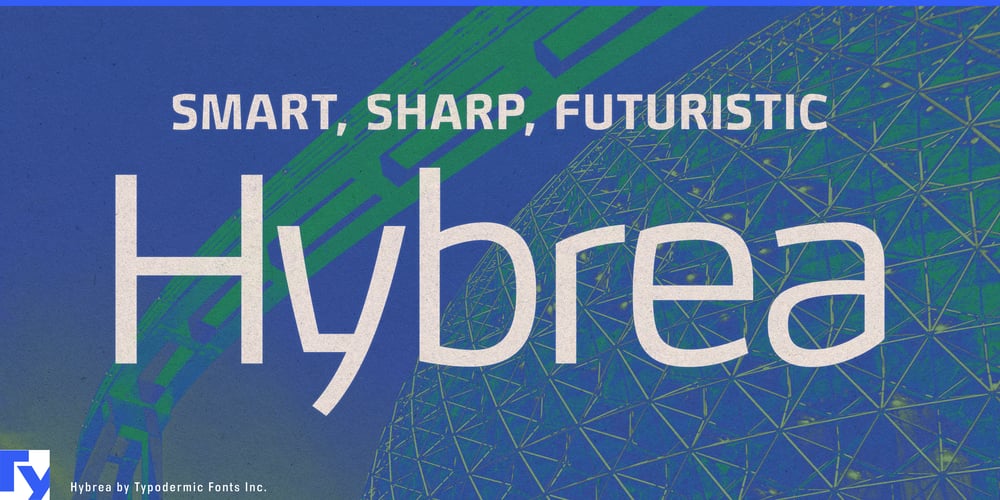
Hybrea Font Family was designed by Ray Larabie and published by Typodermic. Hybrea contains 15 styles and family package options. Welcome to the cutting edge of typographic evolution with Hybrea, the sans-serif sensation that’s redefining the very concept of letterforms. It’s a glimpse into a future where design and function achieve perfect symbiosis, where every curve and line is a testament to human innovation and the relentless pursuit of progress.Hybrea doesn’t simply sit on the page; it propels itself forward with the aerodynamic grace of a supersonic jet. Each character is a masterpiece of engineering, its clean, crisp lines bending in unexpected ways that challenge the eye and excite the imagination. It’s as if the letters themselves have been sculpted in a wind tunnel, optimized for maximum visual impact and minimal resistance. But Hybrea isn’t content to merely look to the future—it actively shapes it. With seven meticulously crafted weights, from gossamer-light to boldly assertive, and a full set of italics, Hybrea offers a spectrum of expression as vast as the cosmos itself. Need to whisper the secrets of tomorrow? Hybrea’s lighter weights caress the eye with gentle futurism. Want to shout your vision from the rooftops? The bolder weights stand resolute, ready to make your message heard across time and space.And for those moments when the polished sheen of tomorrow needs a touch of gritty reality, Hybrea unleashes its secret weapon: a greasy stencil variant that marries high-tech sophistication with raw, industrial edge. It’s the typographic equivalent of a sleek robotic arm with oil-stained fingertips—a reminder that even in our cleanest, most advanced future, there’s still room for a little beautiful chaos. Hybrea isn’t just designed for a clean future—it actively works towards it. Each letter is a micro-engine of sustainability, turning every word into a step towards a brighter tomorrow. From eco-conscious startups to world-changing nonprofits, Hybrea lends its voice to those who dare to dream of a better world. And true to its forward-thinking nature, Hybrea is a linguistic polyglot, as comfortable setting Finnish environmental policies as it is crafting Portuguese tech manifestos. Its character set spans the breadth of Europe and beyond, ensuring that no matter where the future takes us, Hybrea will be there to describe it in pitch-perfect local dialect.Choosing Hybrea for your project isn’t just a design decision—it’s a declaration of intent. It’s for the visionaries, the innovators, the dreamers who look at the world not as it is, but as it could be. Whether you’re designing the interface for the next generation of electric vehicles, crafting a brand identity for a zero-waste initiative, or simply want to infuse your daily communications with a dose of tomorrow, Hybrea stands ready to translate your ideas into typography that transcends time.